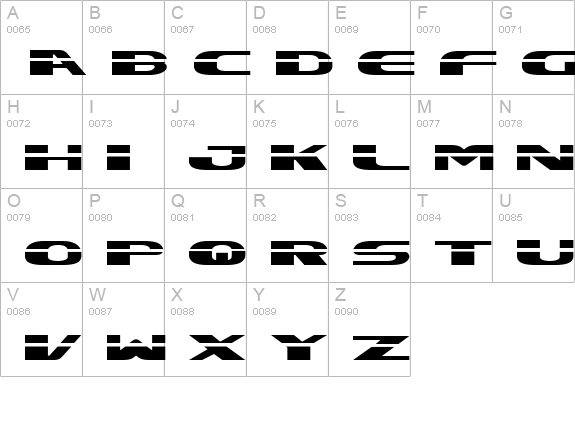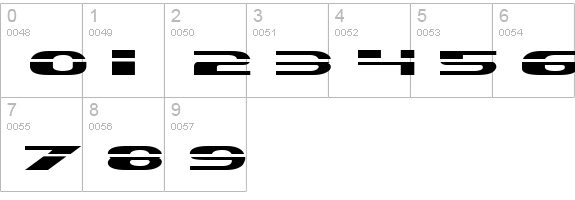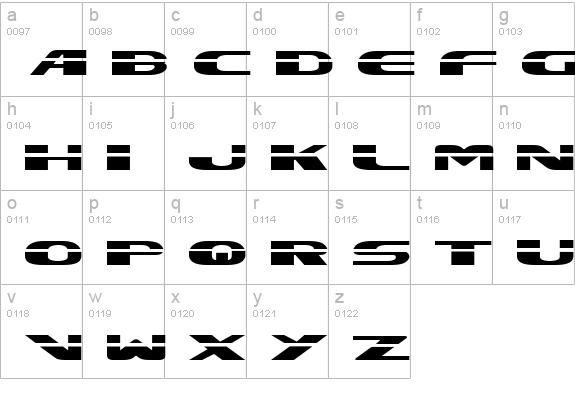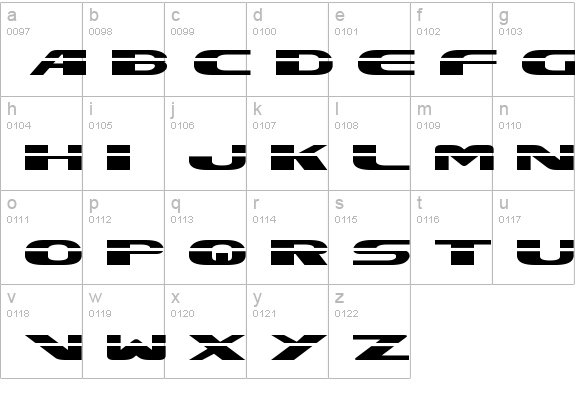
Excelerate Straight Font Details
Introducing Excelerate Straight font, a sleek and modern typeface designed to bring a touch of sophistication to your projects. This versatile font exudes a sense of professionalism and clarity, making it perfect for a wide range of design applications. With its clean lines and sharp edges, Excelerate Straight font is ideal for creating eye-catching headlines, branding materials, and more. Whether you're working on a corporate presentation or a stylish brochure, this font will help your text stand out with its elegant appearance. And the best part? Excelerate Straight font is completely free to download at FontsMarket.com! So you can elevate your designs without breaking the bank. Don't miss out on this opportunity to enhance your projects with this beautiful and modern font. Download Excelerate Straight today and experience the power of great typography for yourself.